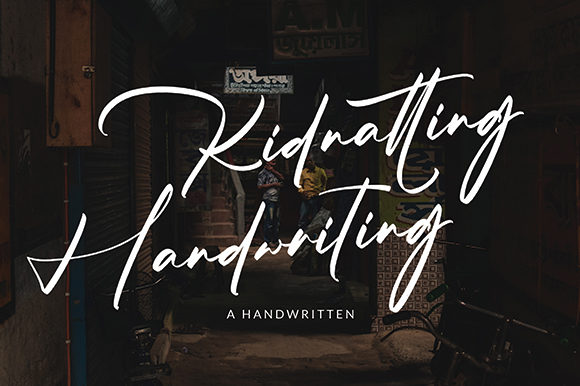
Step into the realm of elegance and charm with Kidnatting Font, the exquisite handwritten script font created by Pineungtype & Missinklab. Experience the beauty of flowing lines, graceful curves, and an enchanting touch that captivates the eye and stirs the heart.
Journey through a world of creativity with Kidnatting. Whether you're crafting wedding invitations or heartfelt thank you cards, designing quotes to inspire or greeting cards to warm souls, this font will elevate your words, adding a touch of timeless elegance. Let your designs speak volumes with logos that exude sophistication and business cards that leave a lasting impression.
Embrace the versatility of Kidnatting and explore its endless possibilities. It's the perfect companion for any design project seeking a handwritten flair, effortlessly transforming ordinary words into works of art. Kidnatting Font breathes life into your creations, adding a layer of depth and emotion that resonates with your audience.
Dare to be unique and embrace the beauty of hand-crafted artistry. Kidnatting Font is your gateway to a world of personalized designs, where every word carries a story and every letter dances with grace. Unleash your creativity and embark on a journey of font exploration, where the possibilities are as vast as your imagination.